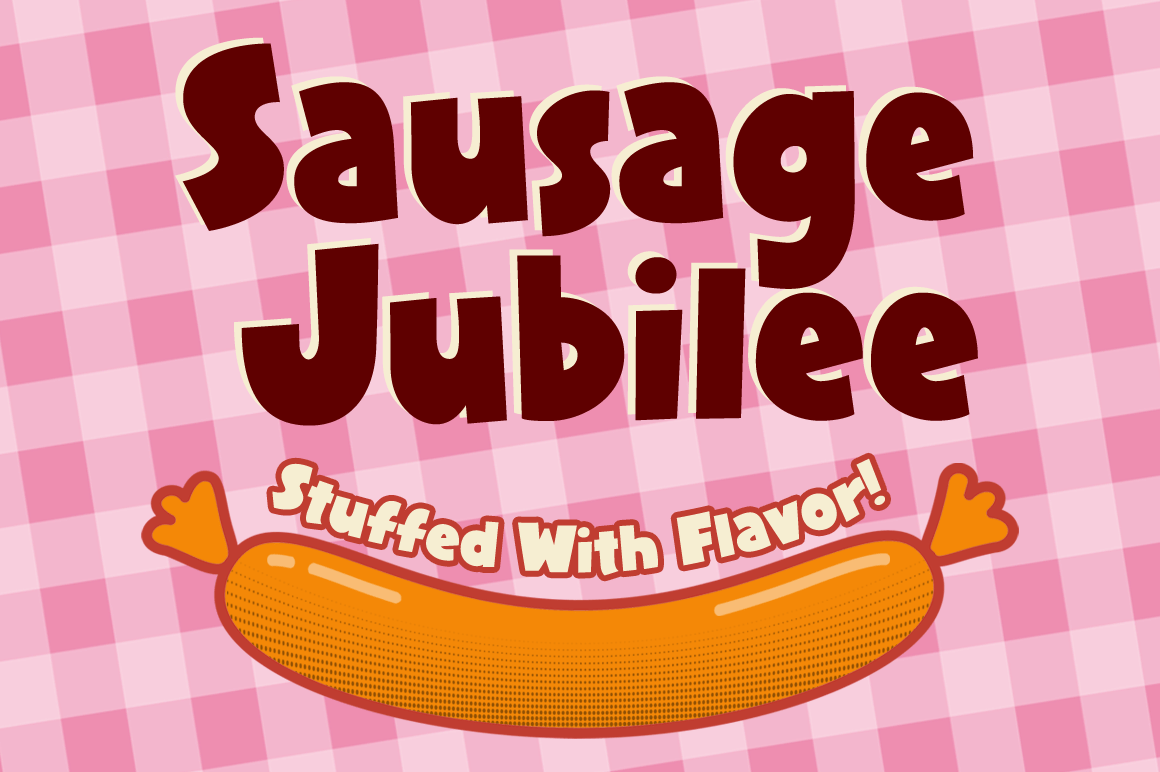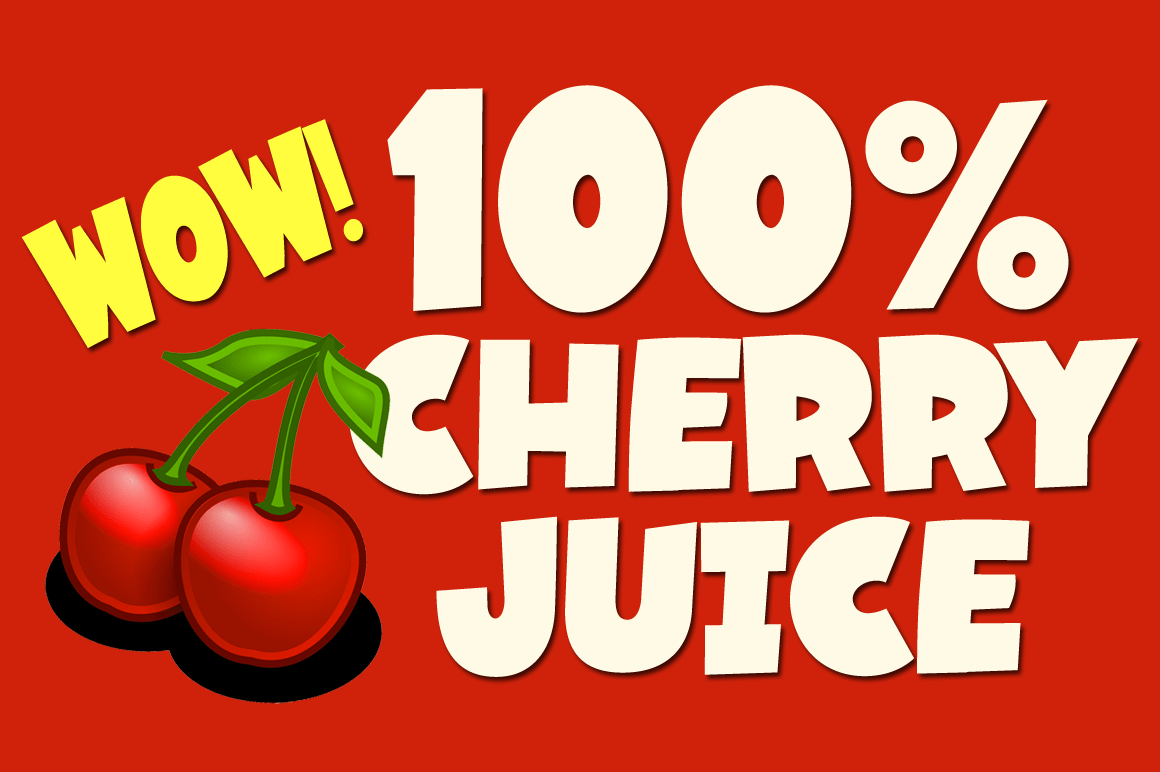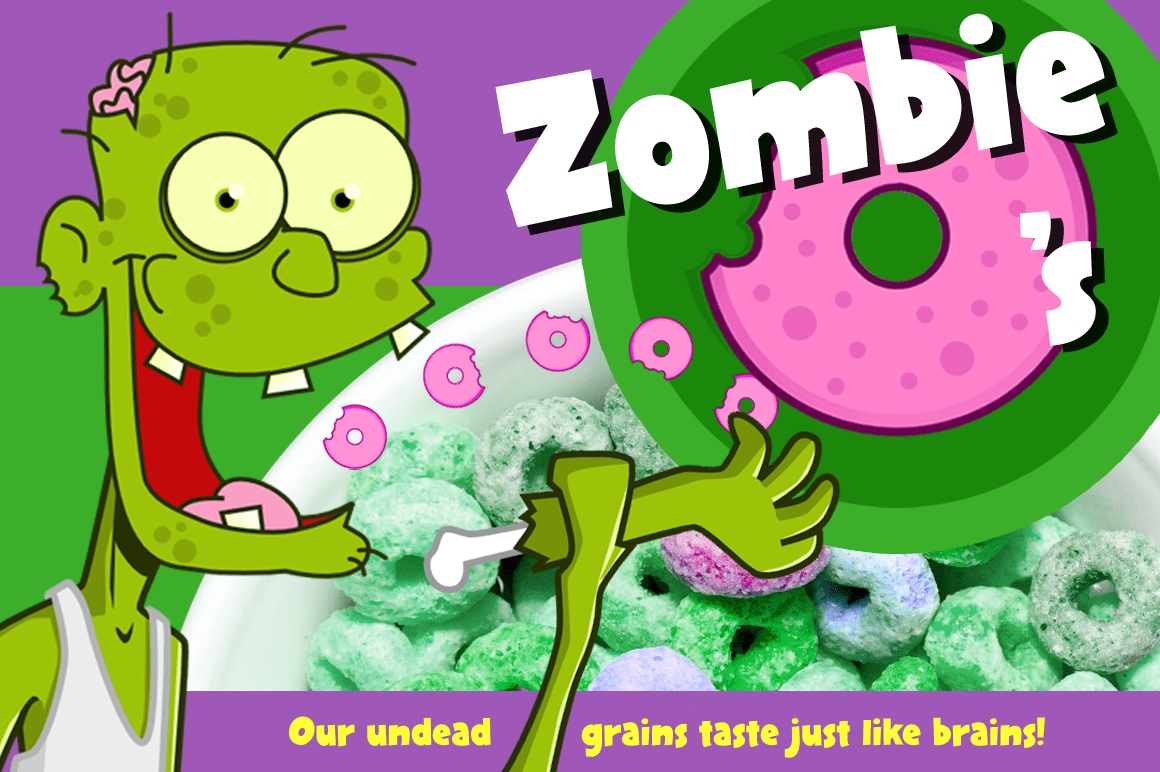
Sausauge Jubilee
Plump, juicy and ready to serve in seconds; that's Sausage Jubilee! We've cooked up a fully-packed set of savory glyphs to make a tempting typographic treat. And we know how you love your links, so we've included the web font as well! Get Sausage Jubilee fresh off the skillet today from Neapolitan. Sausage Jubilee includes a full international and multilingual support and a very large set of alternate contextual characters and built-in ligatures to allow flawless typesetting in dynamic OpenType format.